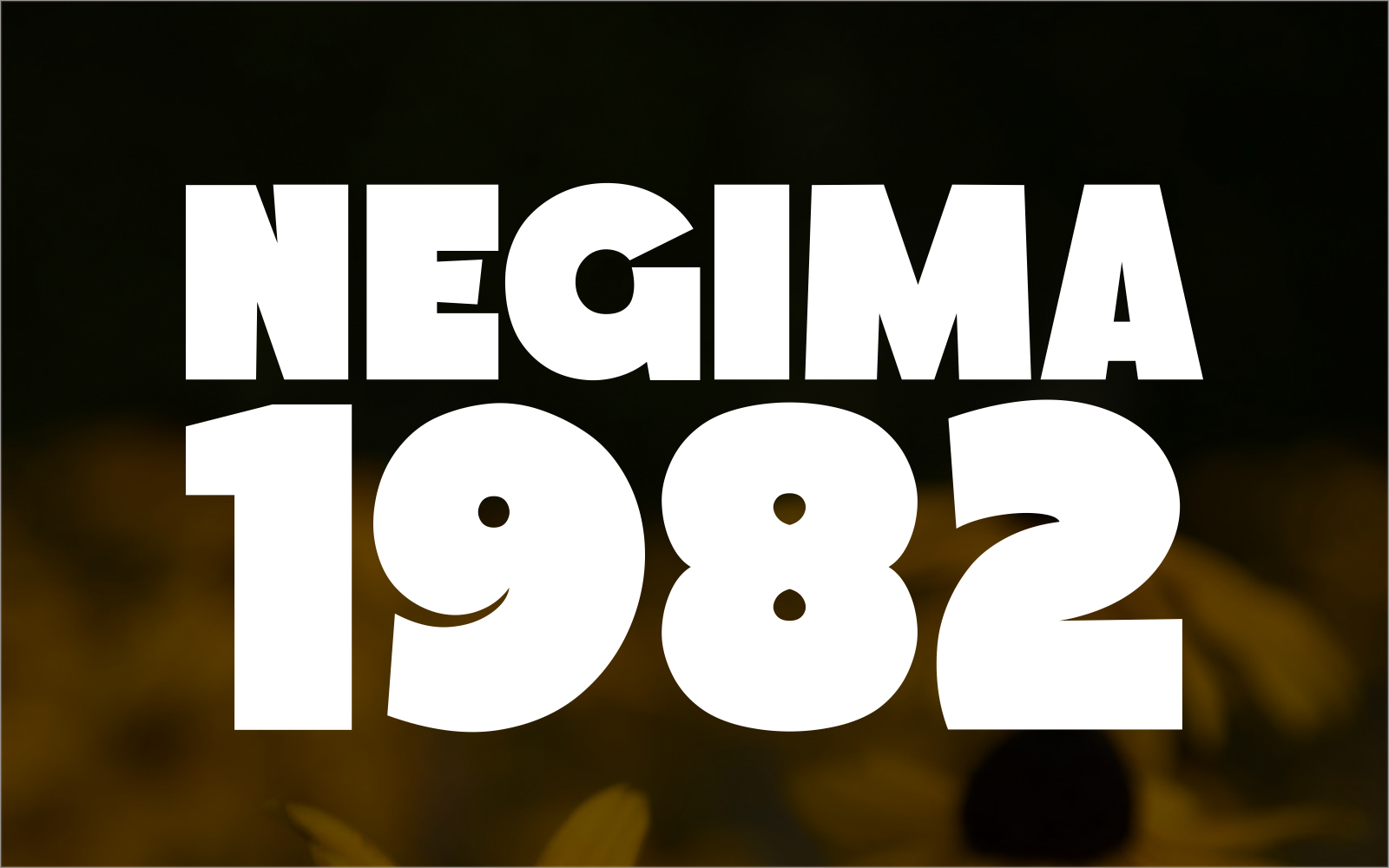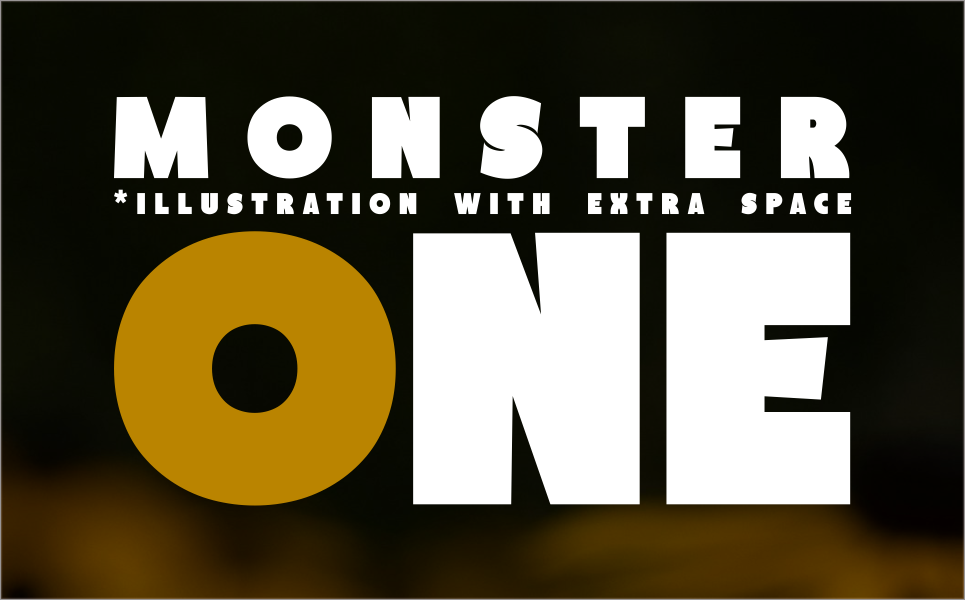
Negima – A 1982-Inspired Cheerful Font
Negima is a playful and cheerful display font inspired by bold retro aesthetics from the 1980s. With a bouncy character set and smooth curves, it’s the perfect choice for projects that need a touch of fun and positivity. From kids’ branding to vibrant social media graphics, Negima brings joyful energy and vintage charm in one dynamic package. This font is ideal for headlines, logos, posters, packaging, and anything that needs a bold personality.